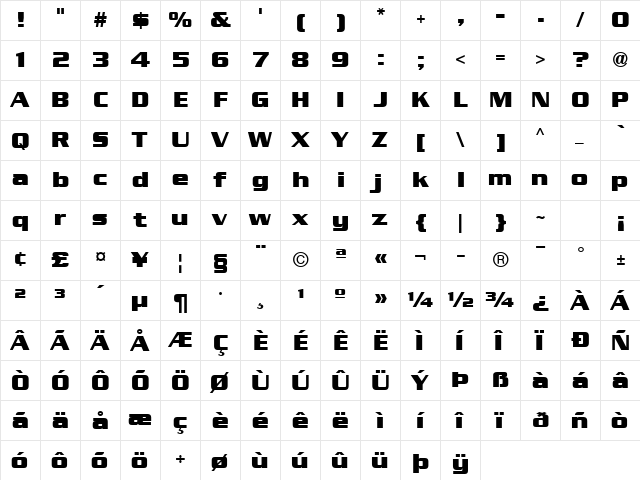
Serpentine Sans ICG Bold
Design Context for Serpentine Sans ICG Typeface
Serpentine Sans ICG offers clean, dependable letterforms without strong stylistic allegiance, making it a practical choice for designers who need flexibility. The heavy weight commands attention and anchors typographic hierarchies.